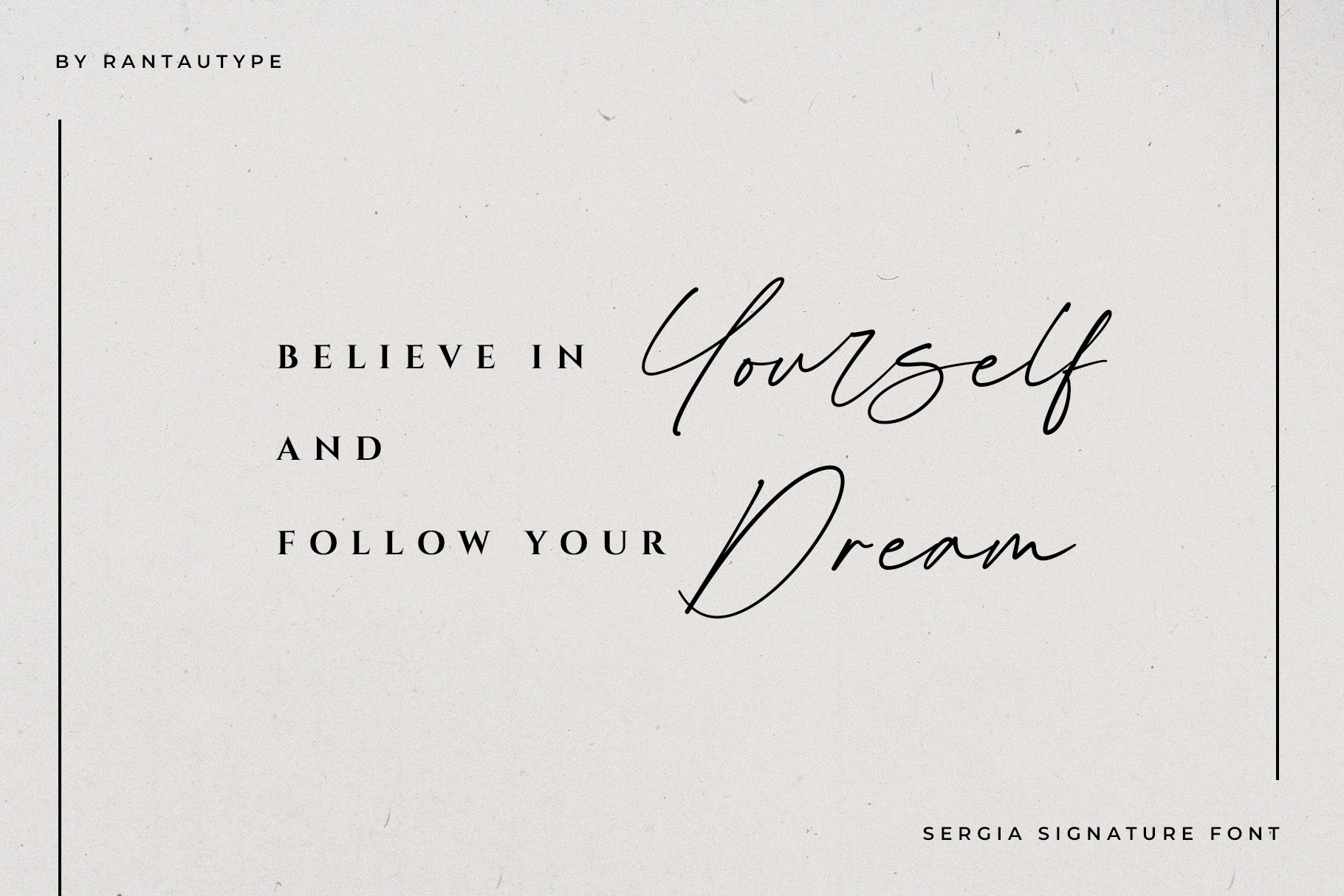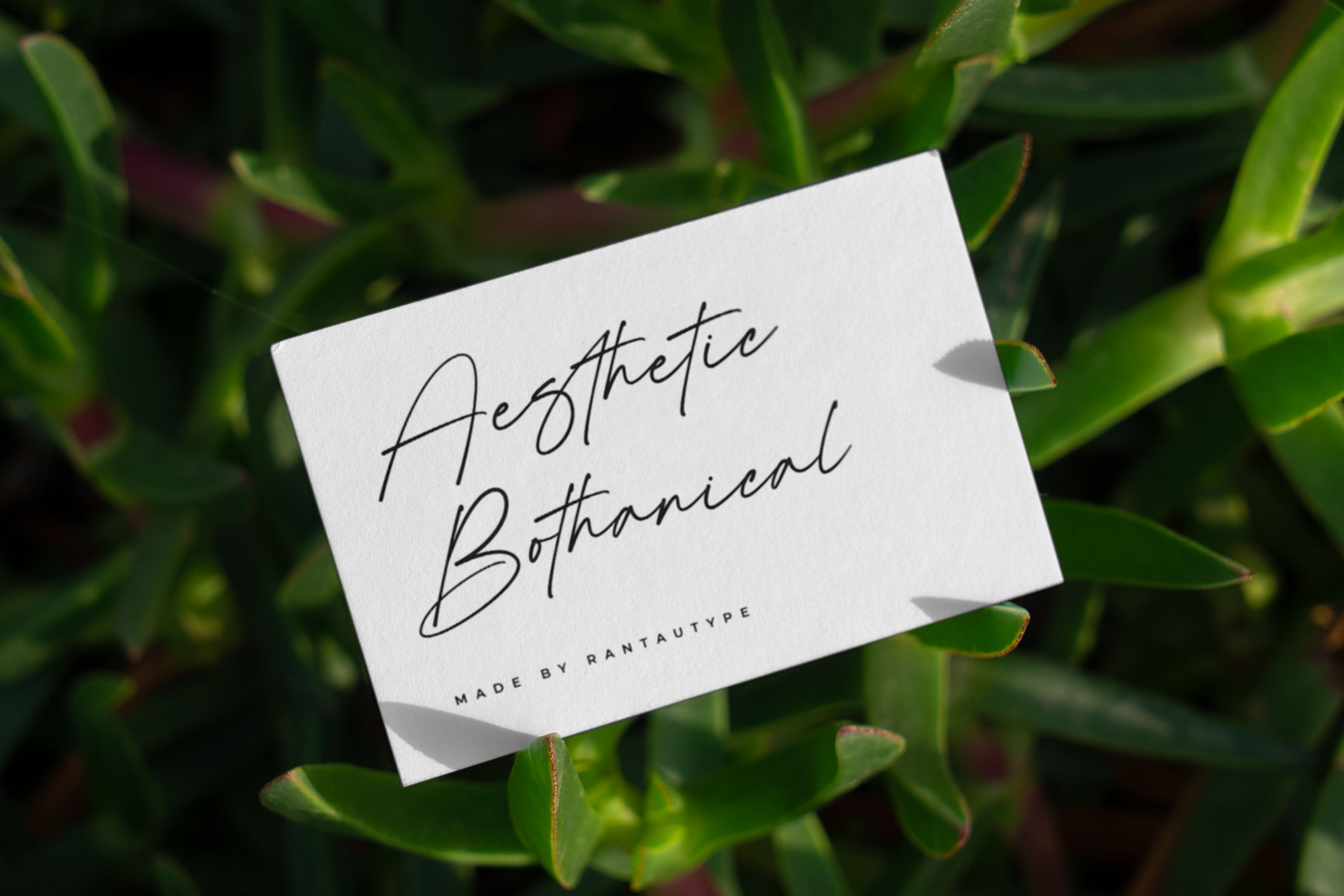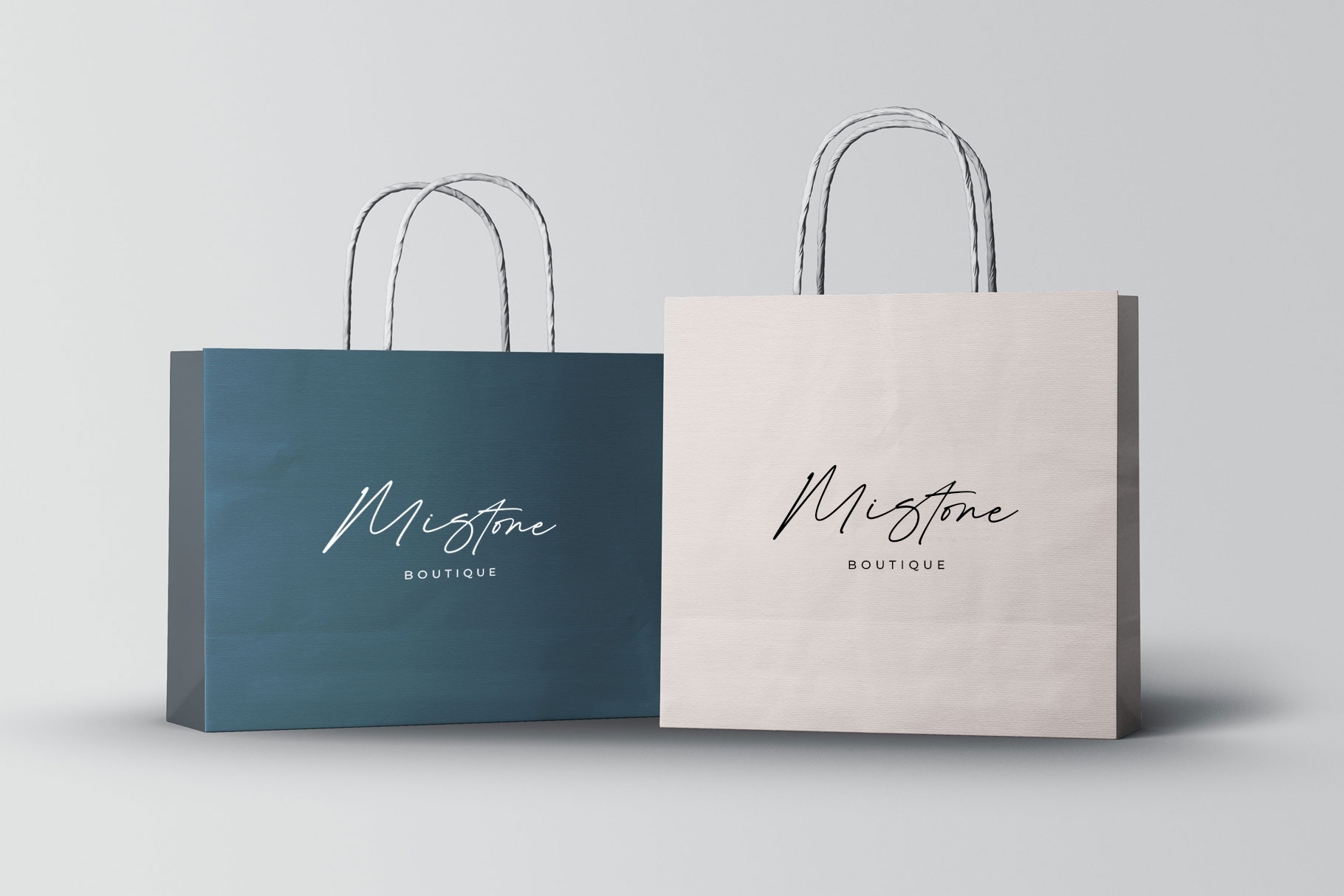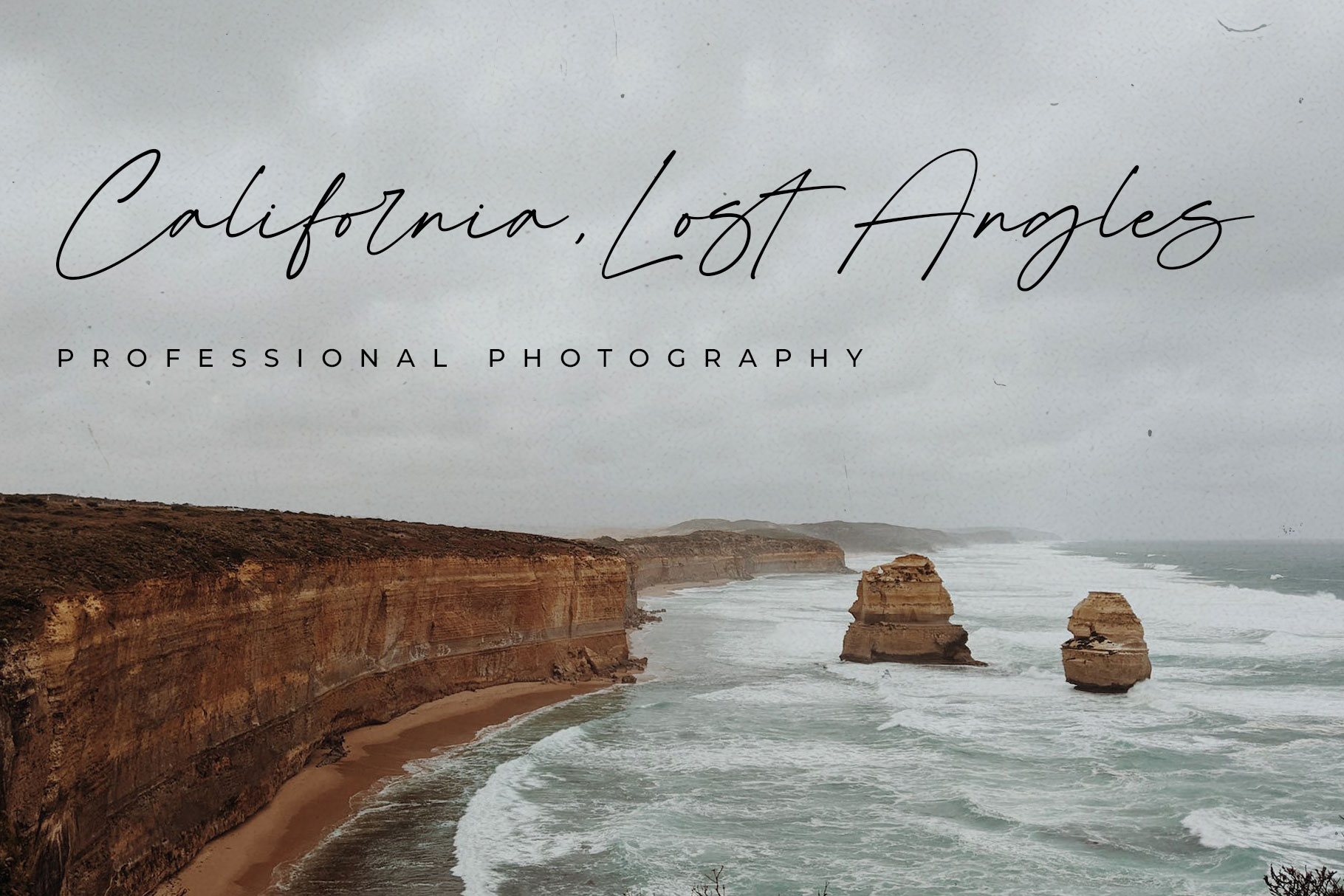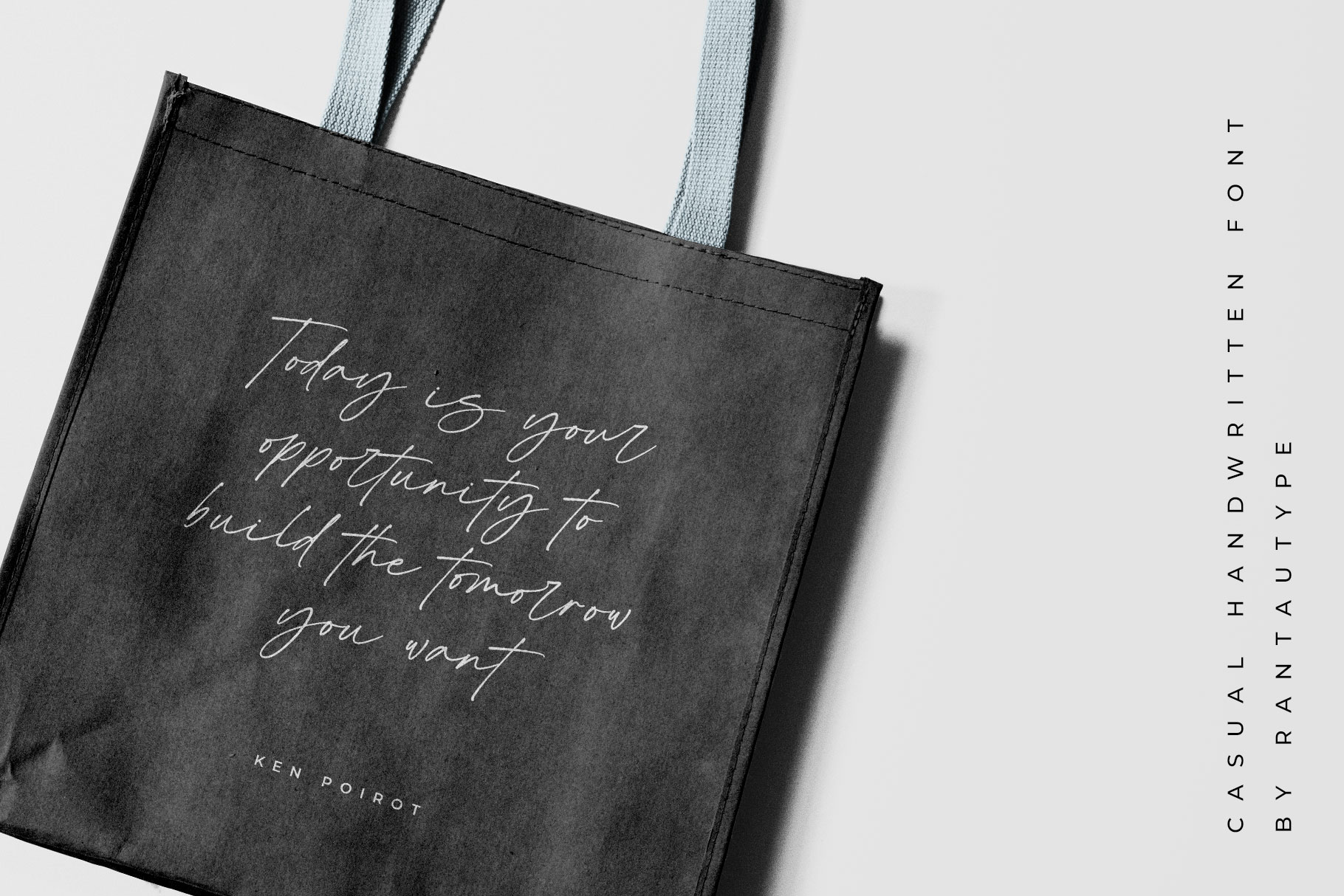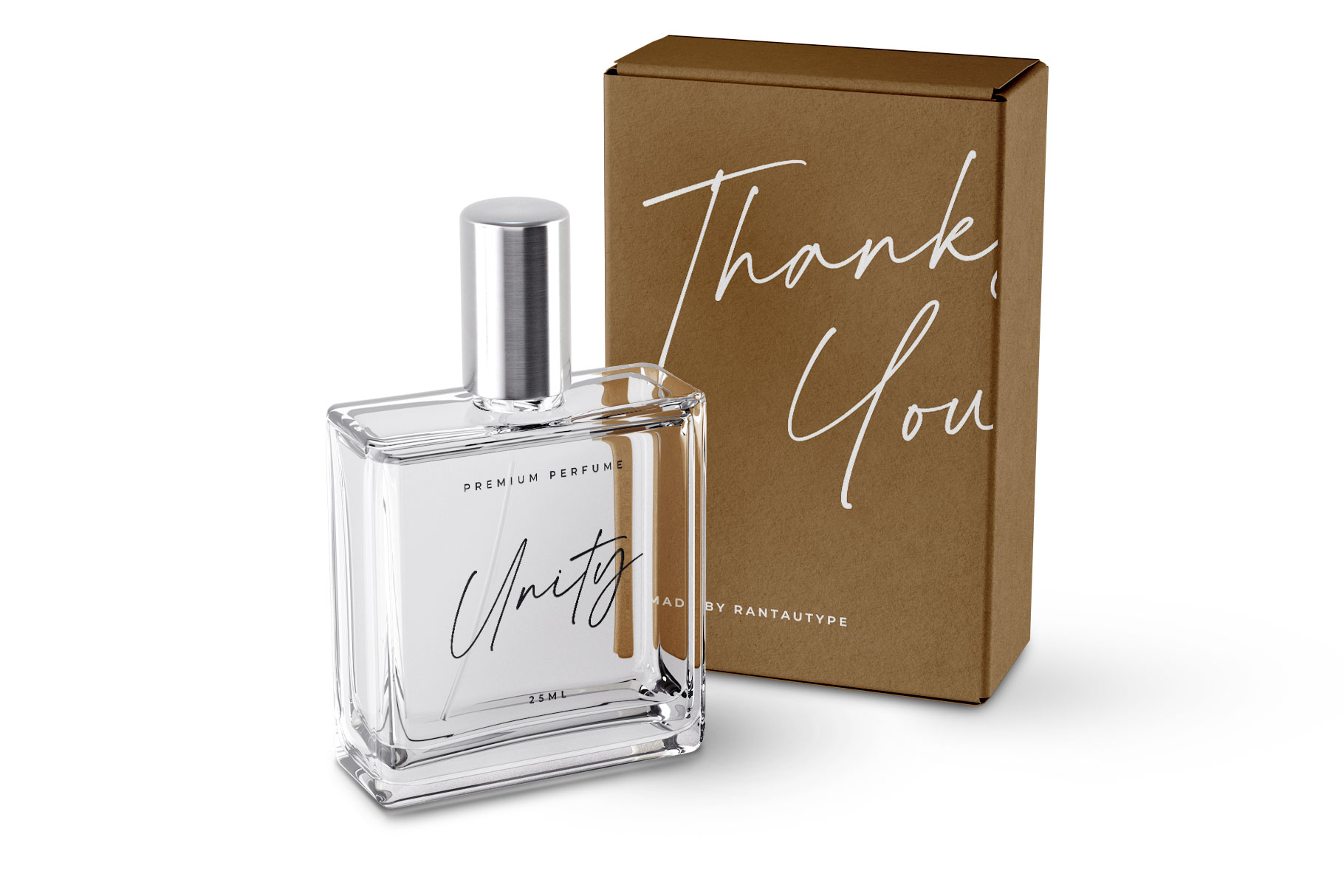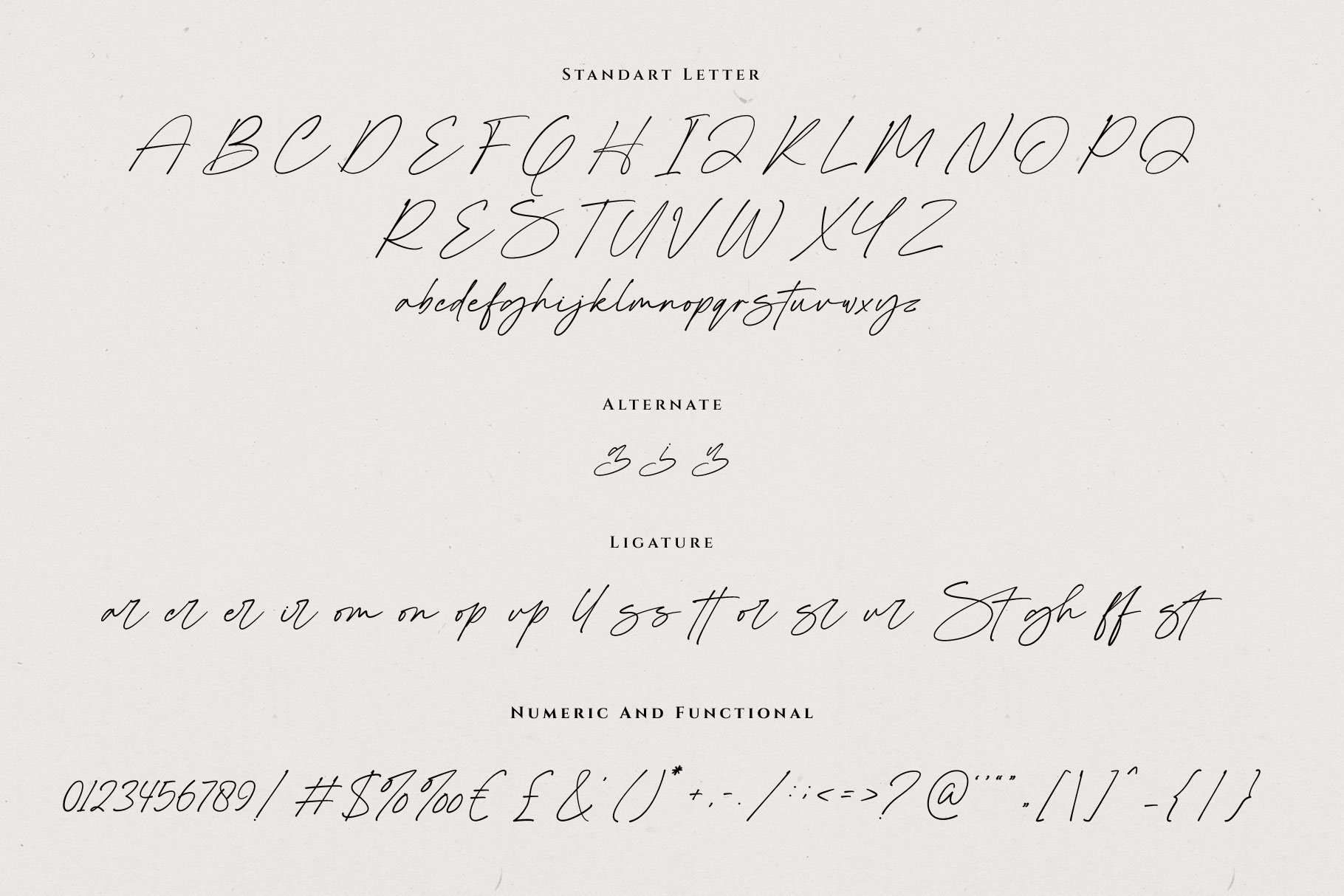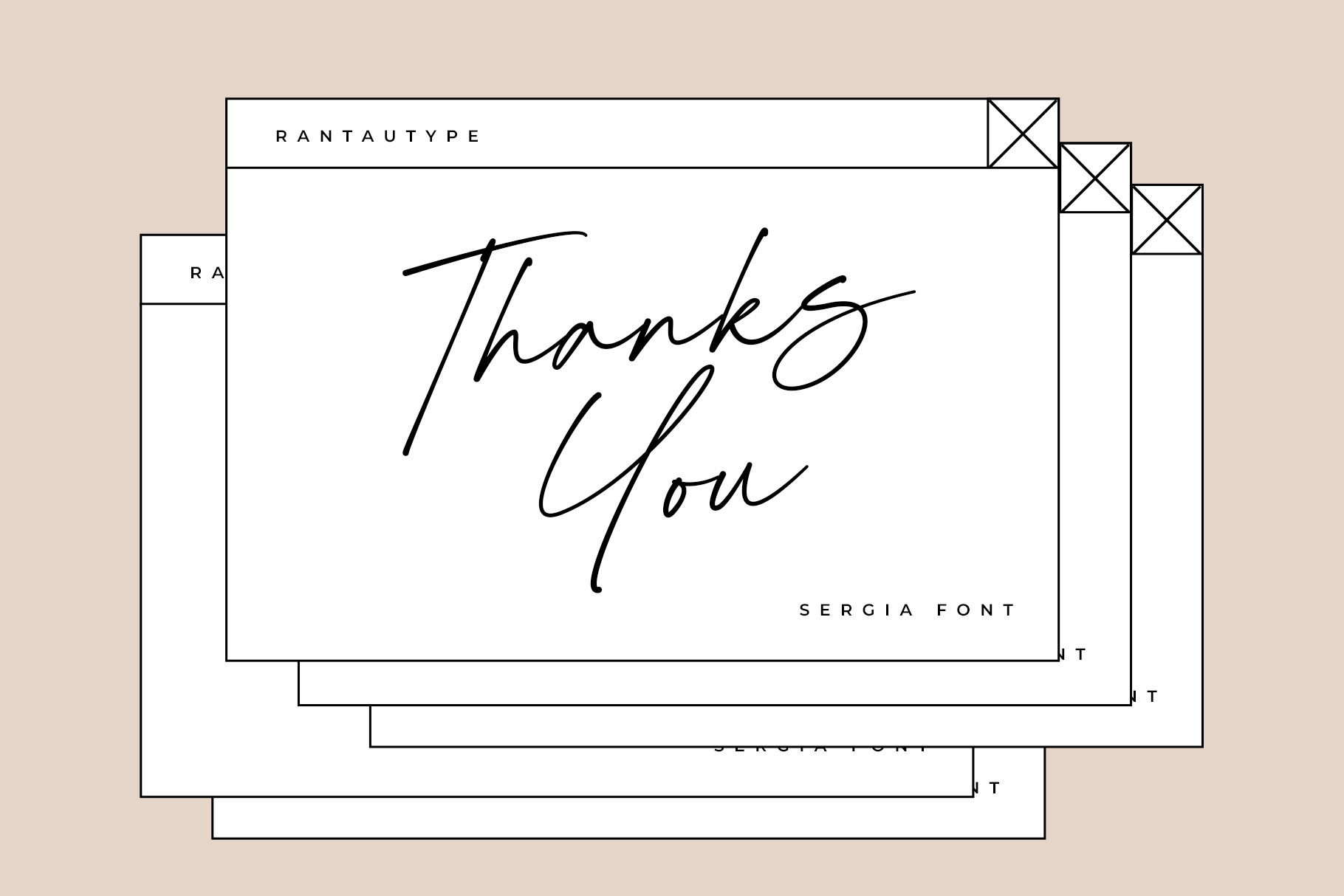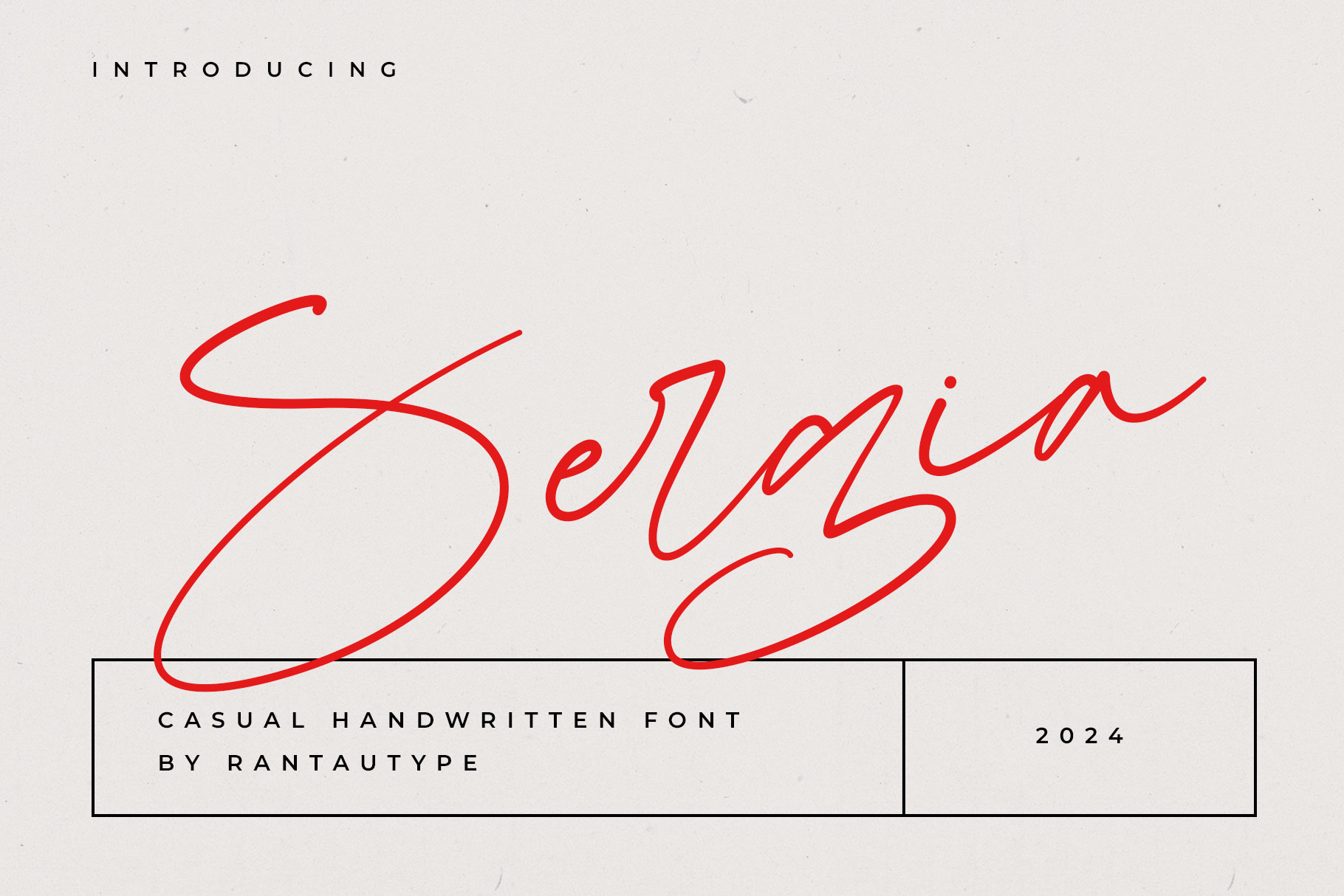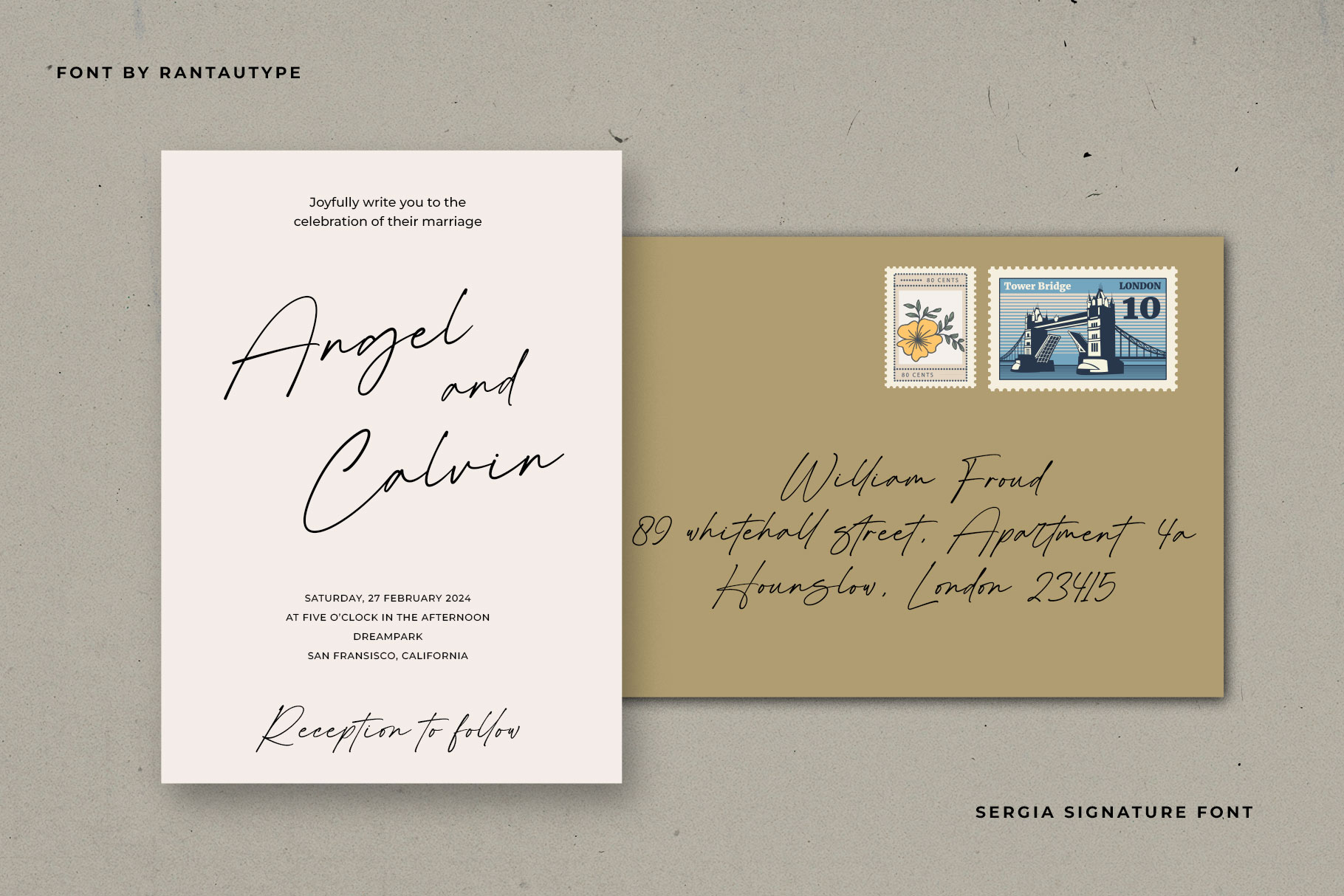
Sergia Handwritten Font
Sergia is a natural handwritten font we keep every single curve keep minimalist look. Sergia can bring you to make awesome design and you brand stand out. Sergia come with alternate, ligature and already support multingual accent character.
Sergia is perfectly choice for any creative endeavor, chic, lifestyle design such as logos, title, watermark on photography, cover, branding, display and magazine, wedding event, corporate brand, quotes, album cover, business card, business project and many other design project with handwritten taste.